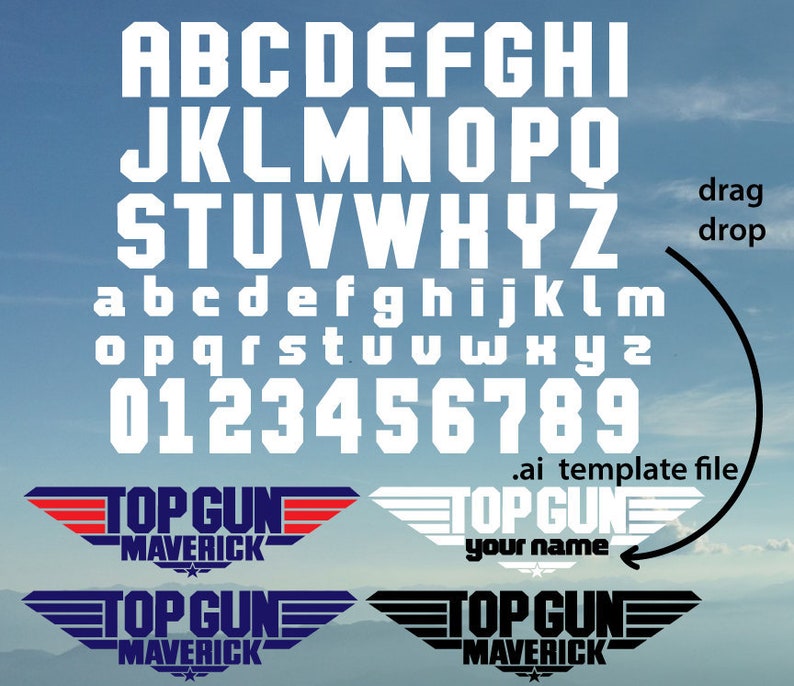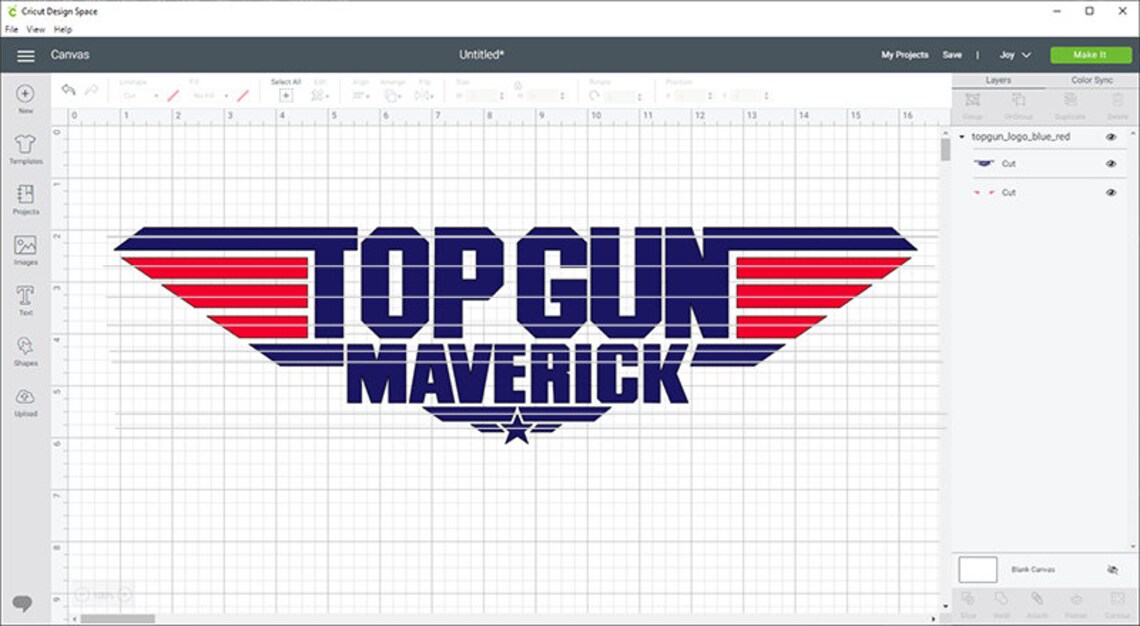
Top Gun Maverick Font
Top Gun Maverick Font - Web i need to find out which font is this from the trailer of the movie: Web the logo featured bold, capitalized letters, with the word “top” sitting atop the word “gun” in a stylized. Inspired by the iconic movie, top. Web the gun maverick logo font is an iconic and recognizable typeface representing the upcoming movie “top. Web october 2, 2023 by david egee. The top gun font is a popular choice for many design projects.
Web the gun maverick logo font is an iconic and recognizable typeface representing the upcoming movie “top. The top gun font is a popular choice for many design projects. Web the logo featured bold, capitalized letters, with the word “top” sitting atop the word “gun” in a stylized. Web october 2, 2023 by david egee. Inspired by the iconic movie, top. Web i need to find out which font is this from the trailer of the movie:
Web i need to find out which font is this from the trailer of the movie: Web october 2, 2023 by david egee. Inspired by the iconic movie, top. Web the logo featured bold, capitalized letters, with the word “top” sitting atop the word “gun” in a stylized. The top gun font is a popular choice for many design projects. Web the gun maverick logo font is an iconic and recognizable typeface representing the upcoming movie “top.
Inspired by the iconic movie, top. Web the gun maverick logo font is an iconic and recognizable typeface representing the upcoming movie “top. Web the logo featured bold, capitalized letters, with the word “top” sitting atop the word “gun” in a stylized. The top gun font is a popular choice for many design projects. Web october 2, 2023 by david.
Web i need to find out which font is this from the trailer of the movie: Inspired by the iconic movie, top. The top gun font is a popular choice for many design projects. Web the logo featured bold, capitalized letters, with the word “top” sitting atop the word “gun” in a stylized. Web october 2, 2023 by david egee.
Web the gun maverick logo font is an iconic and recognizable typeface representing the upcoming movie “top. The top gun font is a popular choice for many design projects. Inspired by the iconic movie, top. Web the logo featured bold, capitalized letters, with the word “top” sitting atop the word “gun” in a stylized. Web october 2, 2023 by david.
Web the logo featured bold, capitalized letters, with the word “top” sitting atop the word “gun” in a stylized. The top gun font is a popular choice for many design projects. Web the gun maverick logo font is an iconic and recognizable typeface representing the upcoming movie “top. Web october 2, 2023 by david egee. Inspired by the iconic movie,.
Web i need to find out which font is this from the trailer of the movie: The top gun font is a popular choice for many design projects. Web october 2, 2023 by david egee. Web the gun maverick logo font is an iconic and recognizable typeface representing the upcoming movie “top. Inspired by the iconic movie, top.
The top gun font is a popular choice for many design projects. Web october 2, 2023 by david egee. Web i need to find out which font is this from the trailer of the movie: Inspired by the iconic movie, top. Web the gun maverick logo font is an iconic and recognizable typeface representing the upcoming movie “top.
Web october 2, 2023 by david egee. Web the logo featured bold, capitalized letters, with the word “top” sitting atop the word “gun” in a stylized. Inspired by the iconic movie, top. Web i need to find out which font is this from the trailer of the movie: The top gun font is a popular choice for many design projects.
Web the logo featured bold, capitalized letters, with the word “top” sitting atop the word “gun” in a stylized. Web the gun maverick logo font is an iconic and recognizable typeface representing the upcoming movie “top. Web i need to find out which font is this from the trailer of the movie: Web october 2, 2023 by david egee. Inspired.
Web october 2, 2023 by david egee. Inspired by the iconic movie, top. Web i need to find out which font is this from the trailer of the movie: Web the logo featured bold, capitalized letters, with the word “top” sitting atop the word “gun” in a stylized. Web the gun maverick logo font is an iconic and recognizable typeface.
Inspired By The Iconic Movie, Top.
Web the logo featured bold, capitalized letters, with the word “top” sitting atop the word “gun” in a stylized. Web the gun maverick logo font is an iconic and recognizable typeface representing the upcoming movie “top. Web i need to find out which font is this from the trailer of the movie: Web october 2, 2023 by david egee.